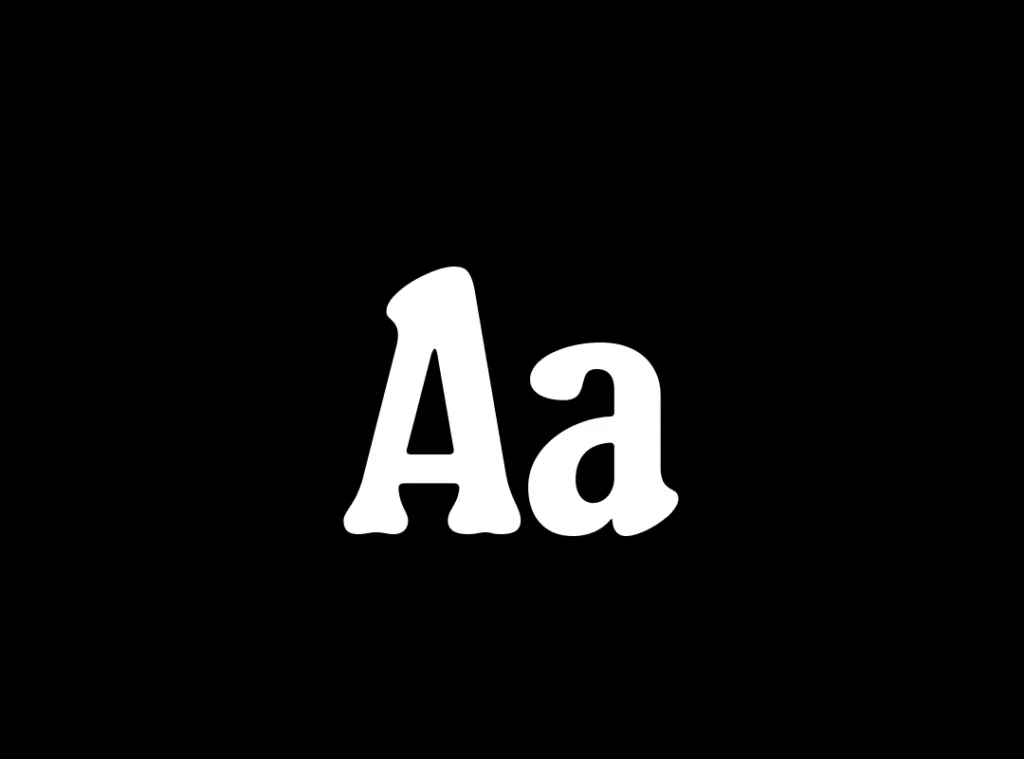
A revival typeface inspired by a character found on an early 20th-century Italian theater ticket and a French car sales brochure.
- Designers: Cédric Rossignol-Brunet
A revival typeface inspired by a character found on an early 20th-century Italian theater ticket and a French car sales brochure.